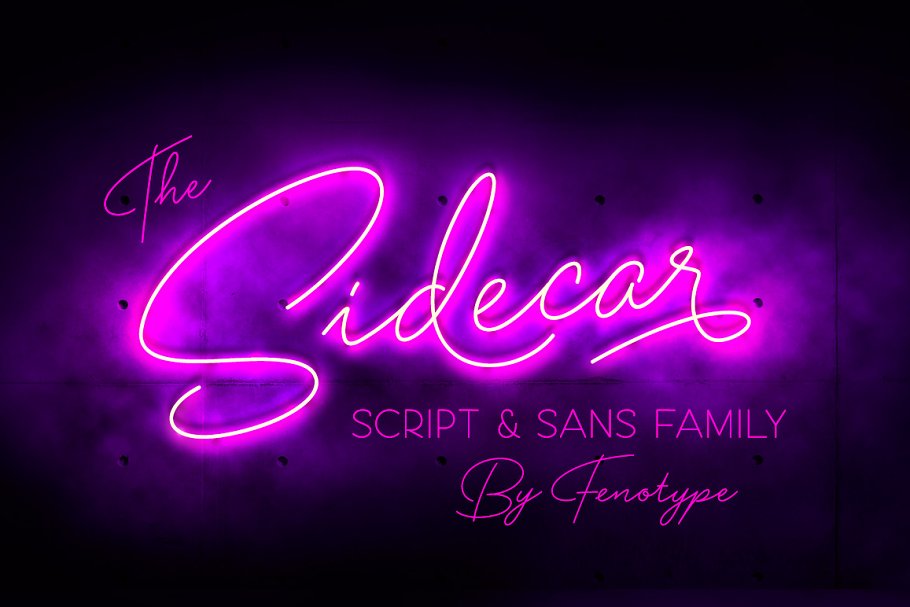
Get ready to elevate your design game with Sidecar Script & Sans Font, the perfect font family for any project from logo to packaging, wedding invitations, and even neon sign design. Created by Emil Bertell, Sidecar is an elegant monoline font family that includes four weights of Script and Sans, all of which are PUA encoded with OpenType features. And right now, you can get this incredible font family at a 20$ off sale!
Sidecar Script and Sans are designed to play together, but they also work great on their own. The Script font is packed with OpenType alternates, including Contextual Alternates for smooth flow, and Swash or Titling Alternates for more flashy letters. Plus, with Discretionary Ligatures, you’ll find Ordinal Suffixes (st, nd, rd, th) that add a touch of elegance to any project.
But that’s not all you get with Sidecar! You’ll receive Sidecar 1 Thin, 2 Light, 3 Regular, and 4 Bold, as well as Sidecar Sans 1-4. Each font is a PUA encoded Monoline Script or Sans with OpenType features. And with this amazing font family, you can create designs that truly stand out both in print and online.
So why settle for an ordinary font when you can have Sidecar Script & Sans Font? Impress your clients, friends, and family with its unique and eye-catching style. Whether you're designing wedding invitations, creating a logo, or designing a neon sign, Sidecar is the perfect font family for any project. Don't miss out on this 20$ off sale and download Sidecar Script & Sans Font today!